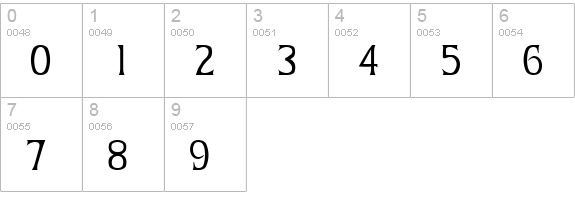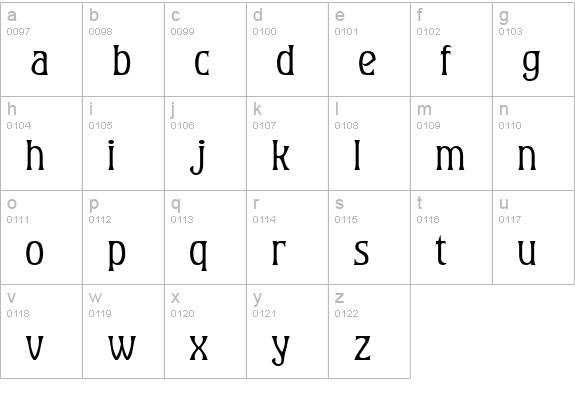
Baumfuss Regular Font Details
Baumfuss Regular is the standard, neutral variant in the Baumfuss typeface family \xE2\x80\x94 well suited to general body text, paragraphs, and standard typographic work.
Baumfuss Regular is a modern and versatile typeface that exudes elegance and sophistication. Its clean lines and balanced proportions make it suitable for a wide range of design projects, from branding to editorial design. The font features a timeless appeal while also offering a contemporary twist, making it perfect for both traditional and modern applications. What sets Baumfuss Regular apart is its exceptional readability and versatility. Whether used for headlines, body text, or display purposes, this font ensures a polished and professional look. Its carefully crafted letterforms and well-spaced characters create a harmonious rhythm that enhances the overall visual impact of any design. Designed with attention to detail, Baumfuss Regular is a true workhorse font that can handle any design challenge with ease. Its subtle yet distinctive personality adds a touch of sophistication to any project, while its flexibility allows for seamless integration into various design contexts. Best of all, Baumfuss Regular is available for free download at FontsMarket.com. This means that you can easily access and use this high-quality font in your projects without any cost. So why wait? Elevate your designs with Baumfuss Regular today and experience the difference it can make!